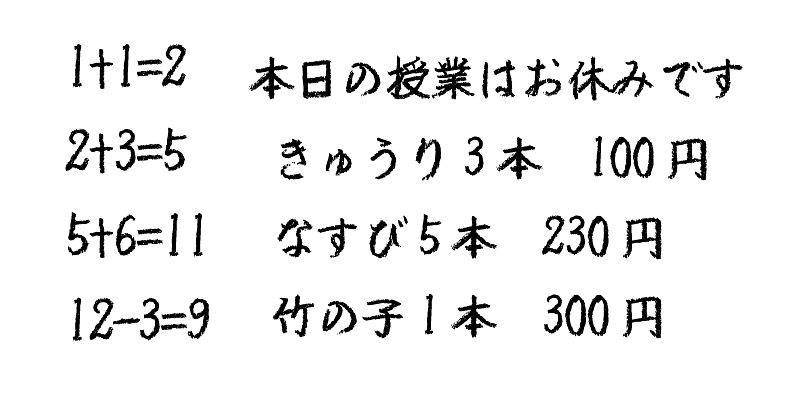
AB Chalk Font Free Download is a fun and hand-drawn typeface that mimics the look and texture of chalk writing on a blackboard. With its textured strokes and informal, playful character design, AB Chalk is perfect for educational materials, school-themed designs, children’s books, restaurant menus, signage, and any project that aims for a handmade or crafty aesthetic.
The font captures the essence of classroom creativity while offering clear legibility and a casual vibe. Whether you're designing for teachers, students, or playful branding, AB Chalk Font adds warmth, approachability, and a nostalgic touch to your typography.